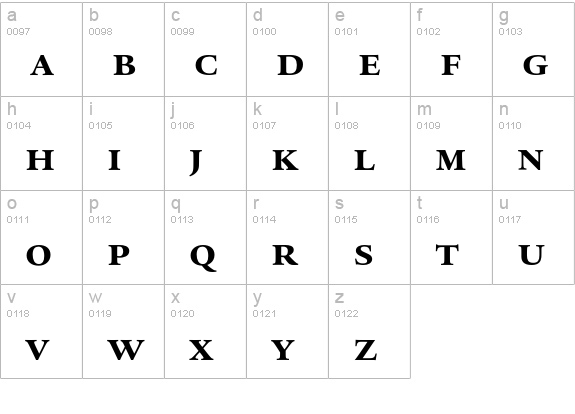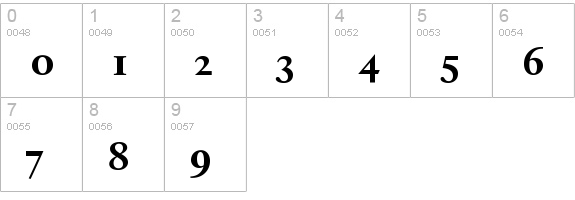
DTLHaarlemmerDCaps-Bold is a strong, high-contrast variant in the DTLHaarlemmerDCaps typeface family \xE2\x80\x94 well suited to headlines, attention-grabbing titles, and strong calls-to-action.
The DTLHaarlemmerDCaps-Bold font is a striking and bold typeface that exudes confidence and modernity. With its clean lines and sharp edges, this font is perfect for making a statement in headlines, titles, and branding materials. The strong presence of the uppercase letters gives a sense of authority and boldness to any design. What sets this font apart is that it is not only visually appealing but also freely available to download at FontsMarket.com. Whether you're working on a professional project or a personal creative endeavor, the DTLHaarlemmerDCaps-Bold font is a versatile choice that will elevate your designs to the next level. Get your hands on this stunning font today and make a bold statement with your typography.